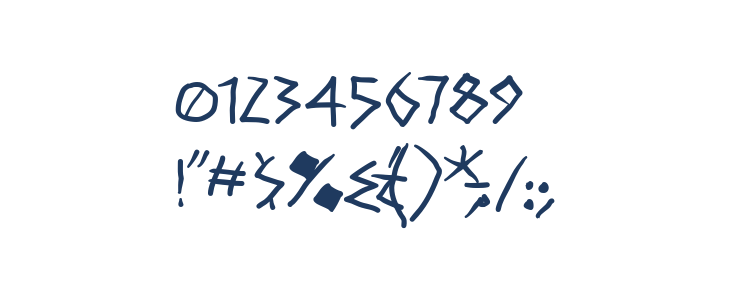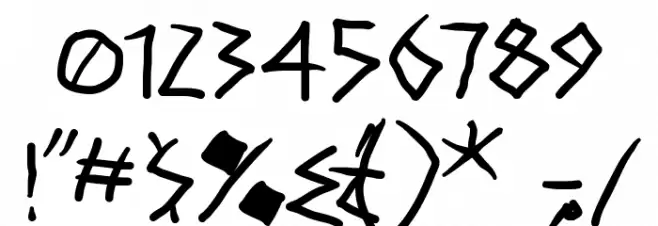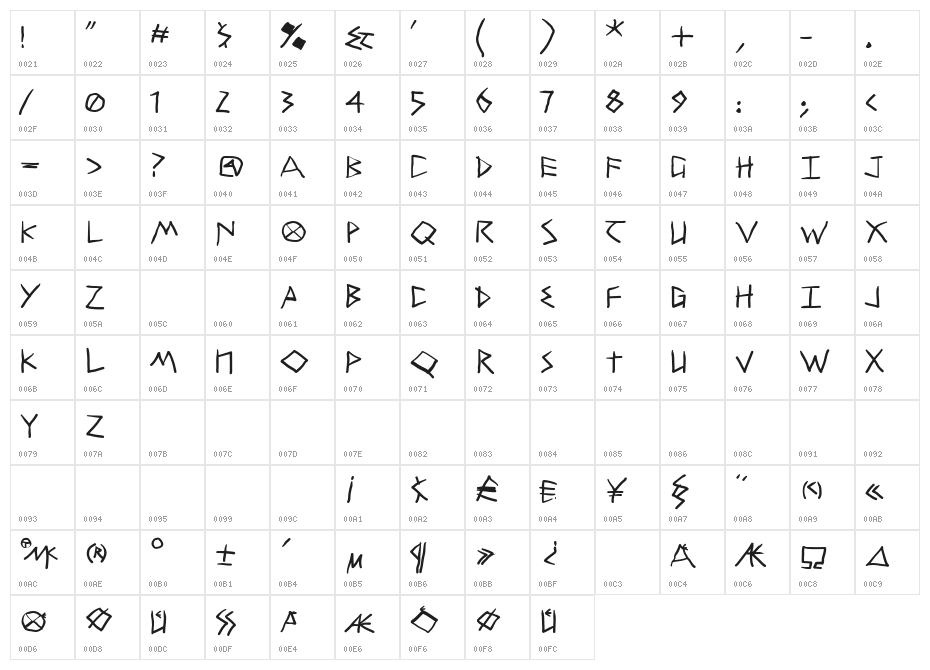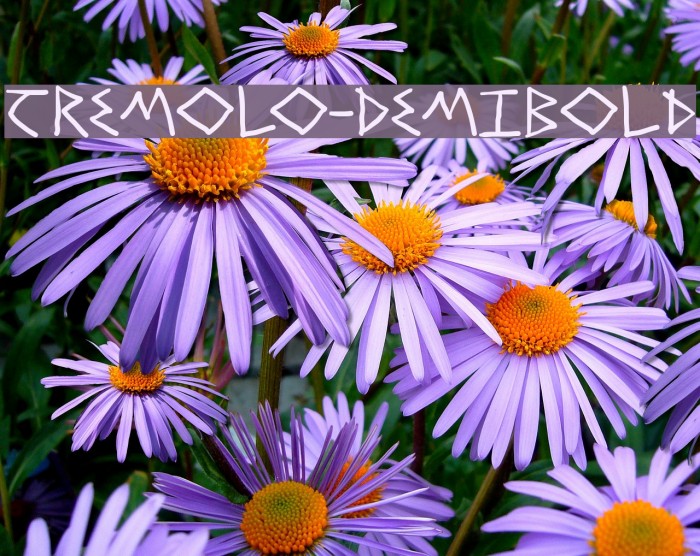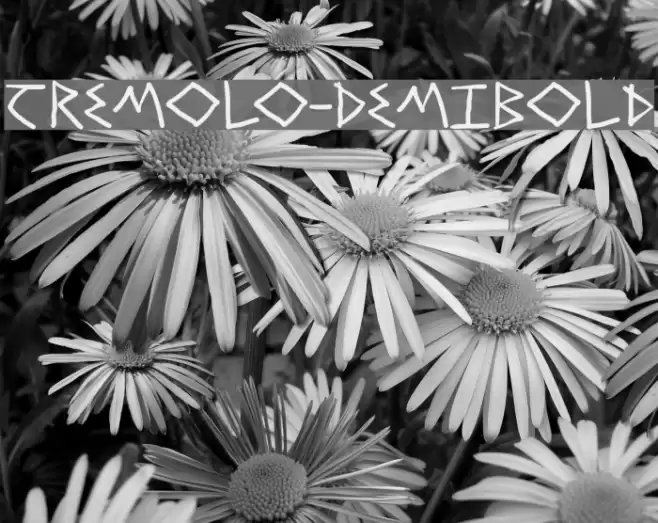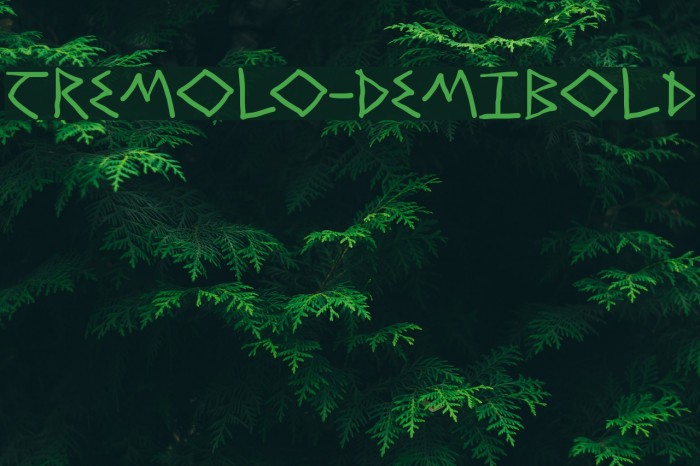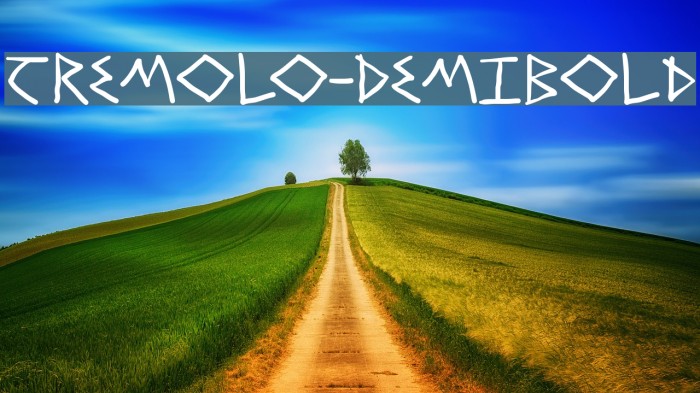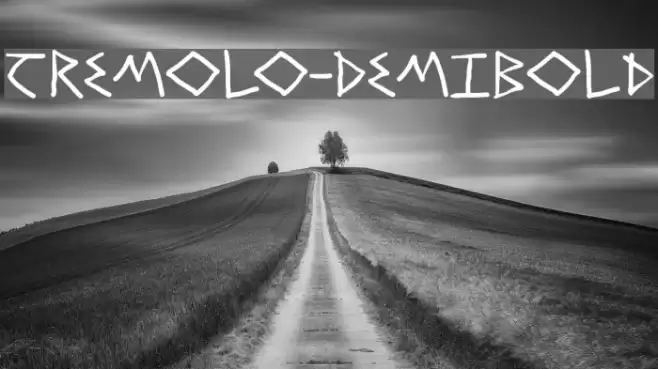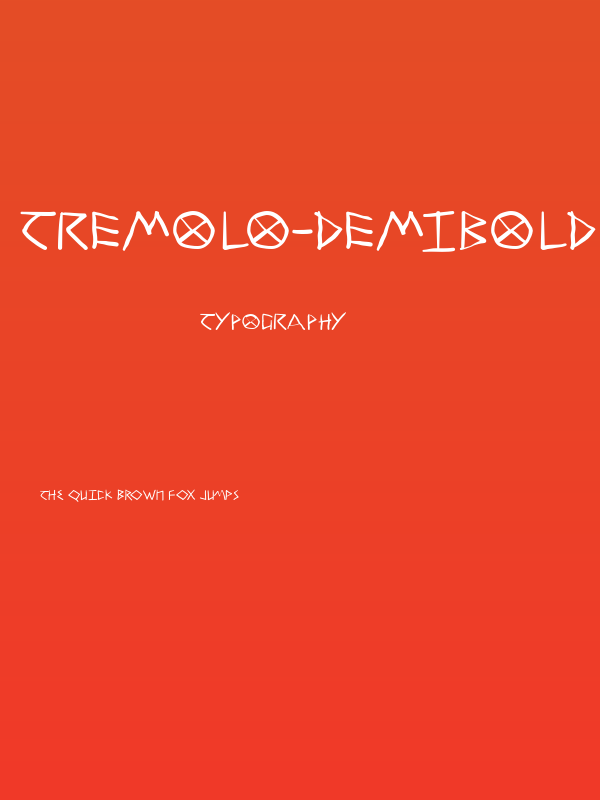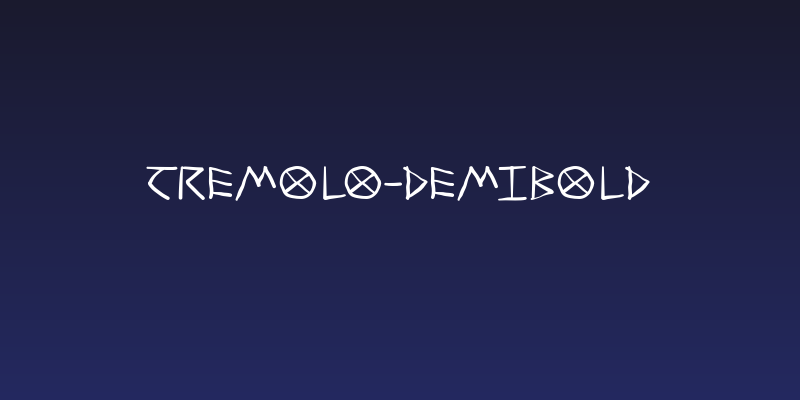
Tremolo-DemiBold Font
Tremolo-DemiBold Description
This font features a bold, hand-drawn style with a slightly irregular and playful appearance. The characters are crafted with a rough, brush-like texture, giving them a dynamic and energetic feel. The uppercase letters are distinct and angular, while the lowercase letters maintain a consistent style with a touch of whimsy. Numbers and special characters follow the same aesthetic, ensuring a cohesive look across all glyphs. The font's unique personality makes it stand out, ideal for projects that require a creative and informal touch.
| Proposed Projects | Perfect for creative projects such as posters, album covers, children's books, and branding that seeks a casual and artistic vibe. |